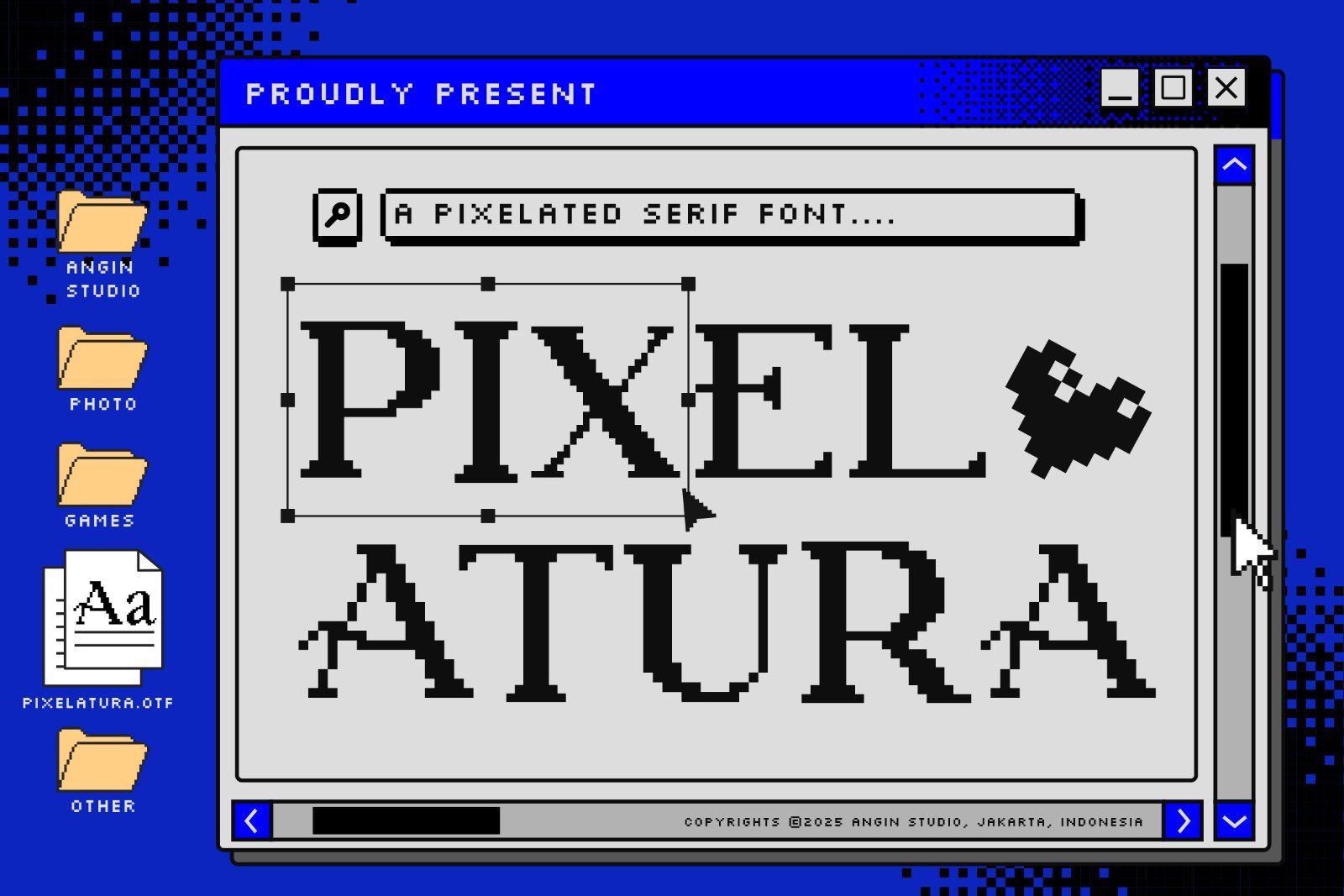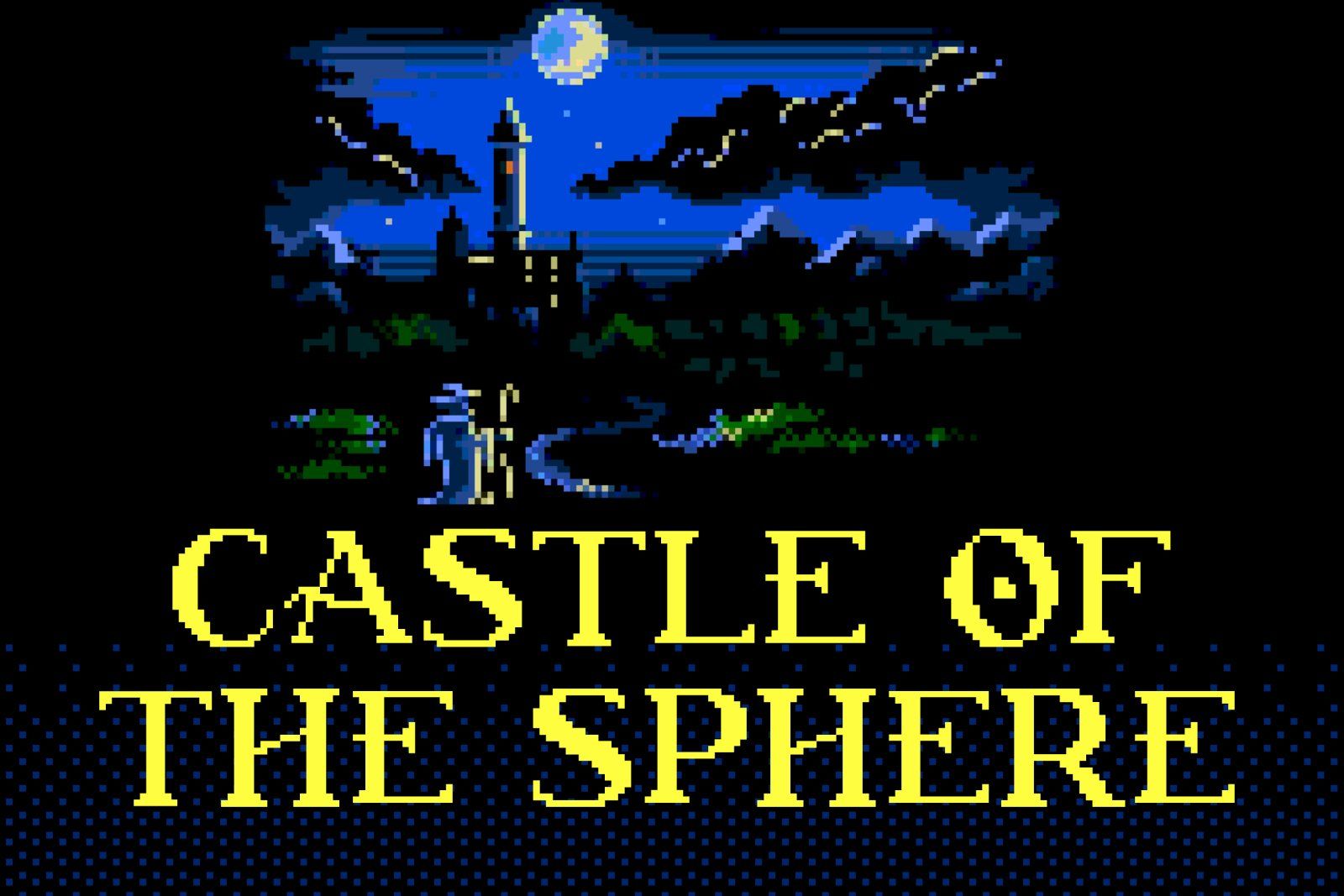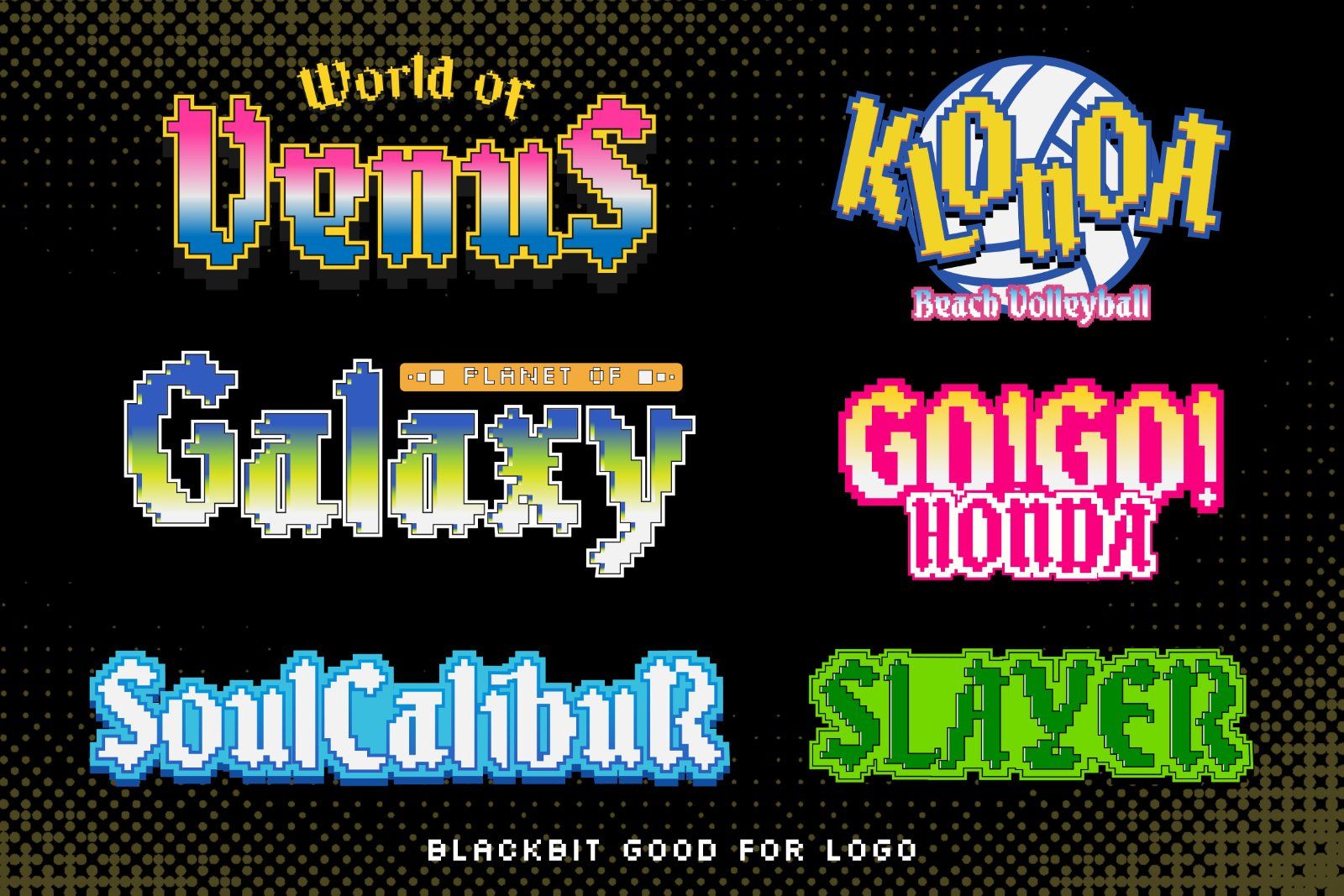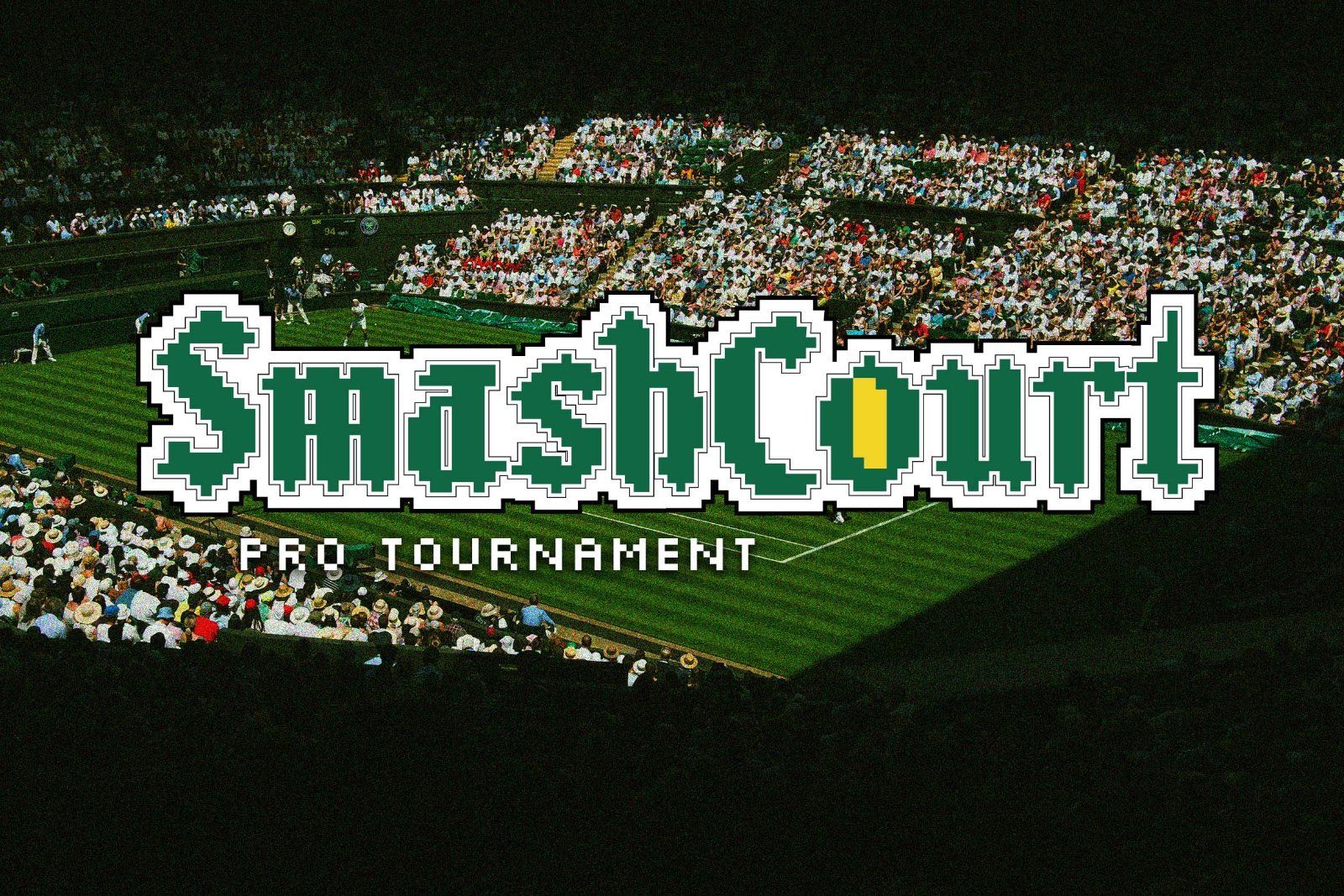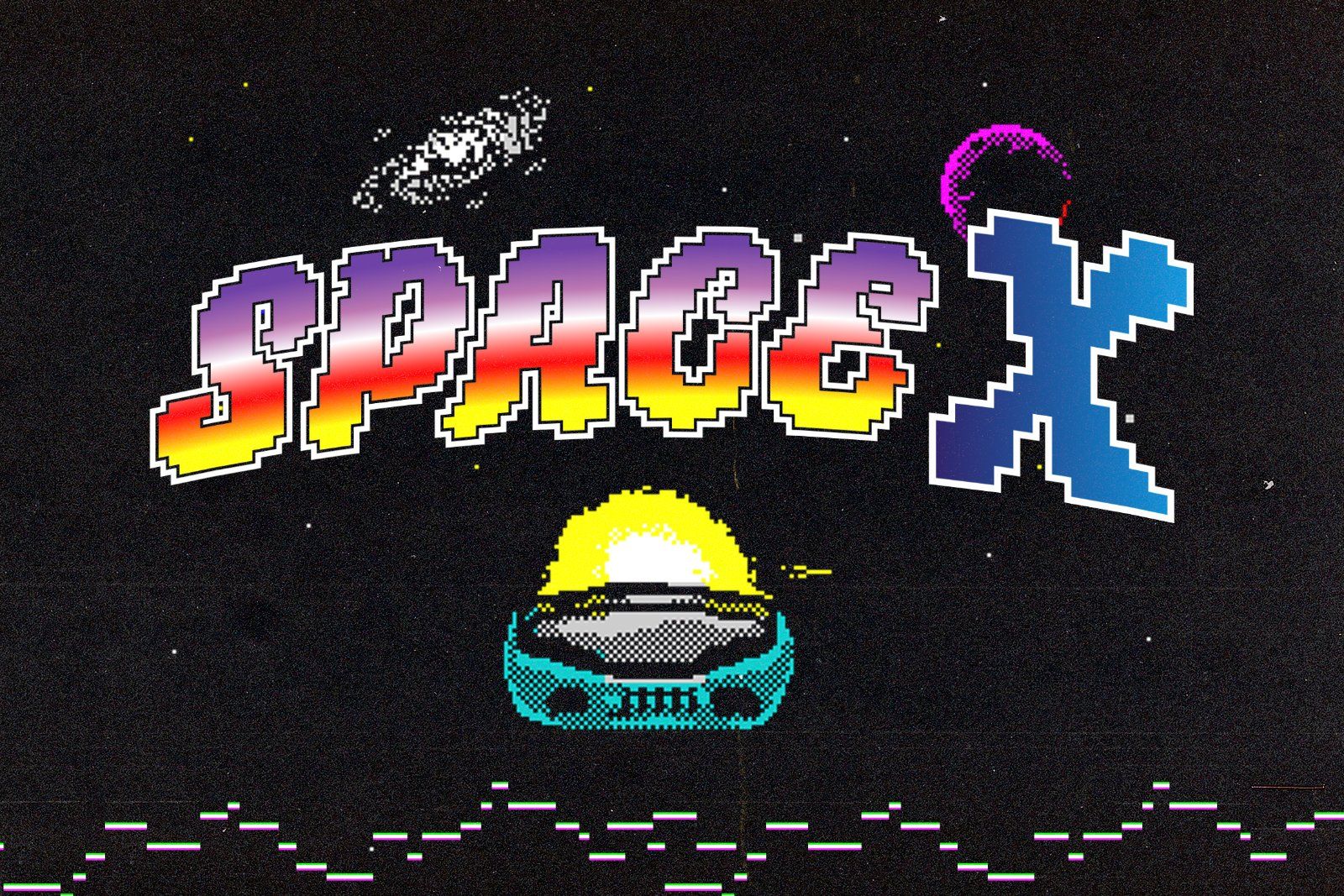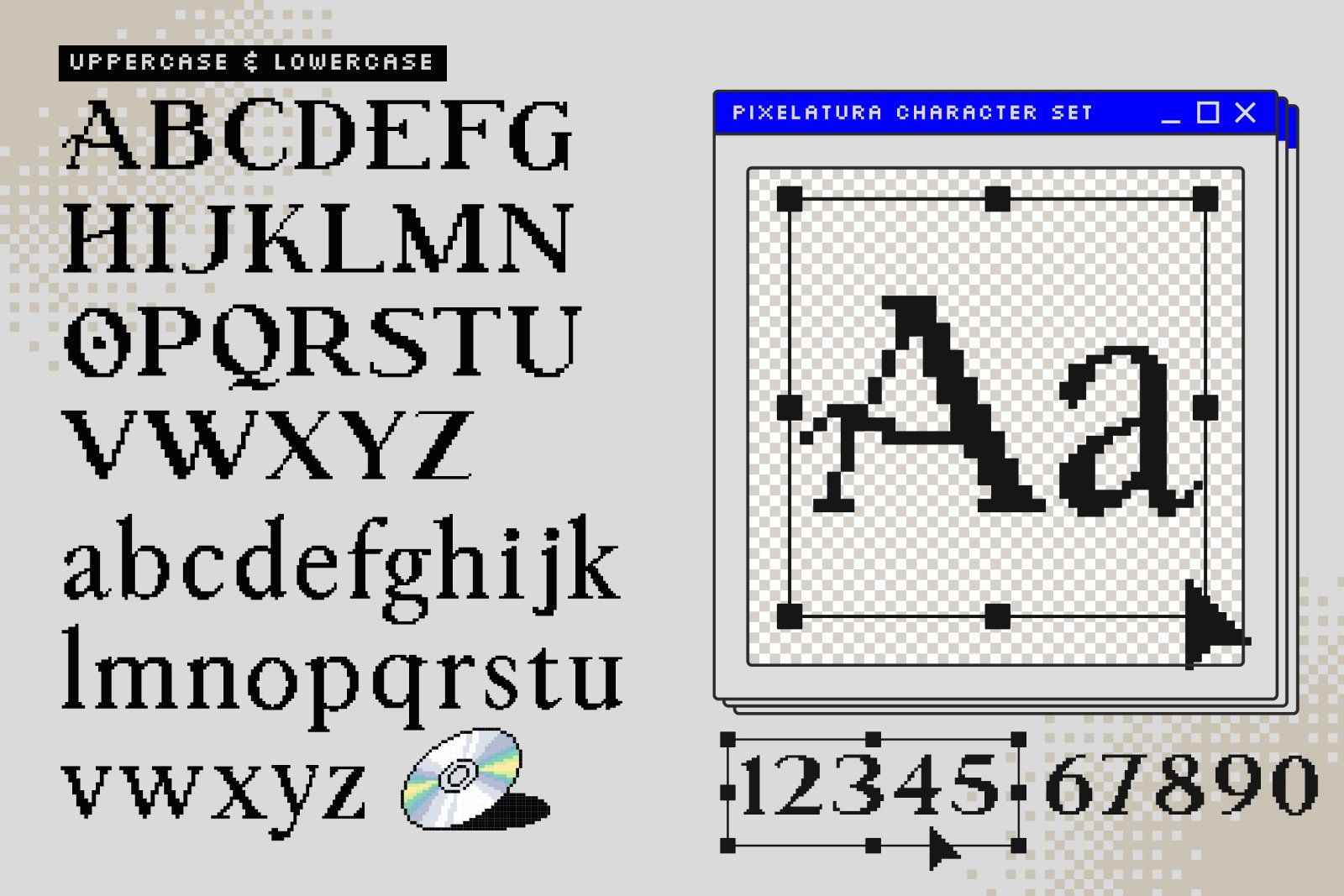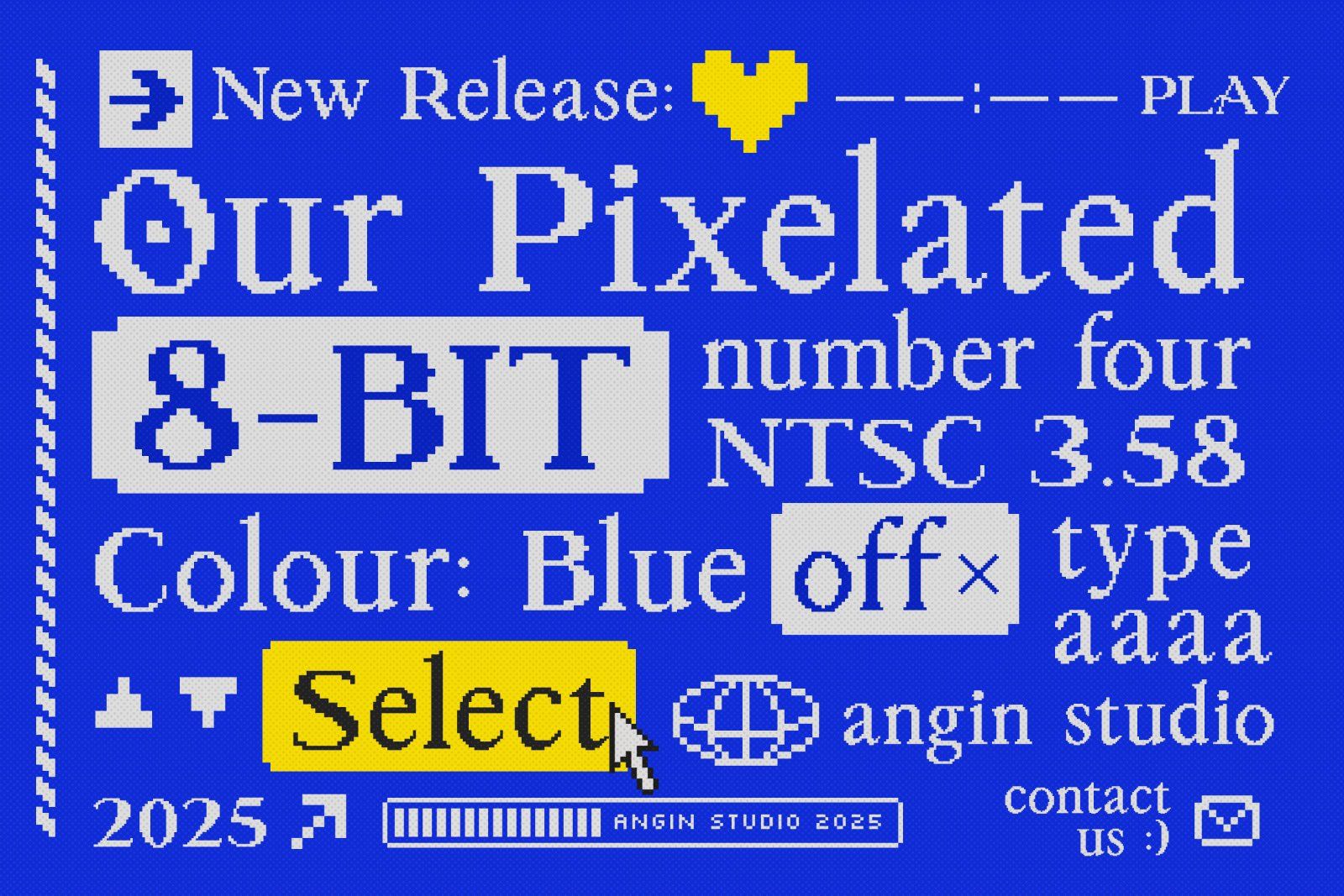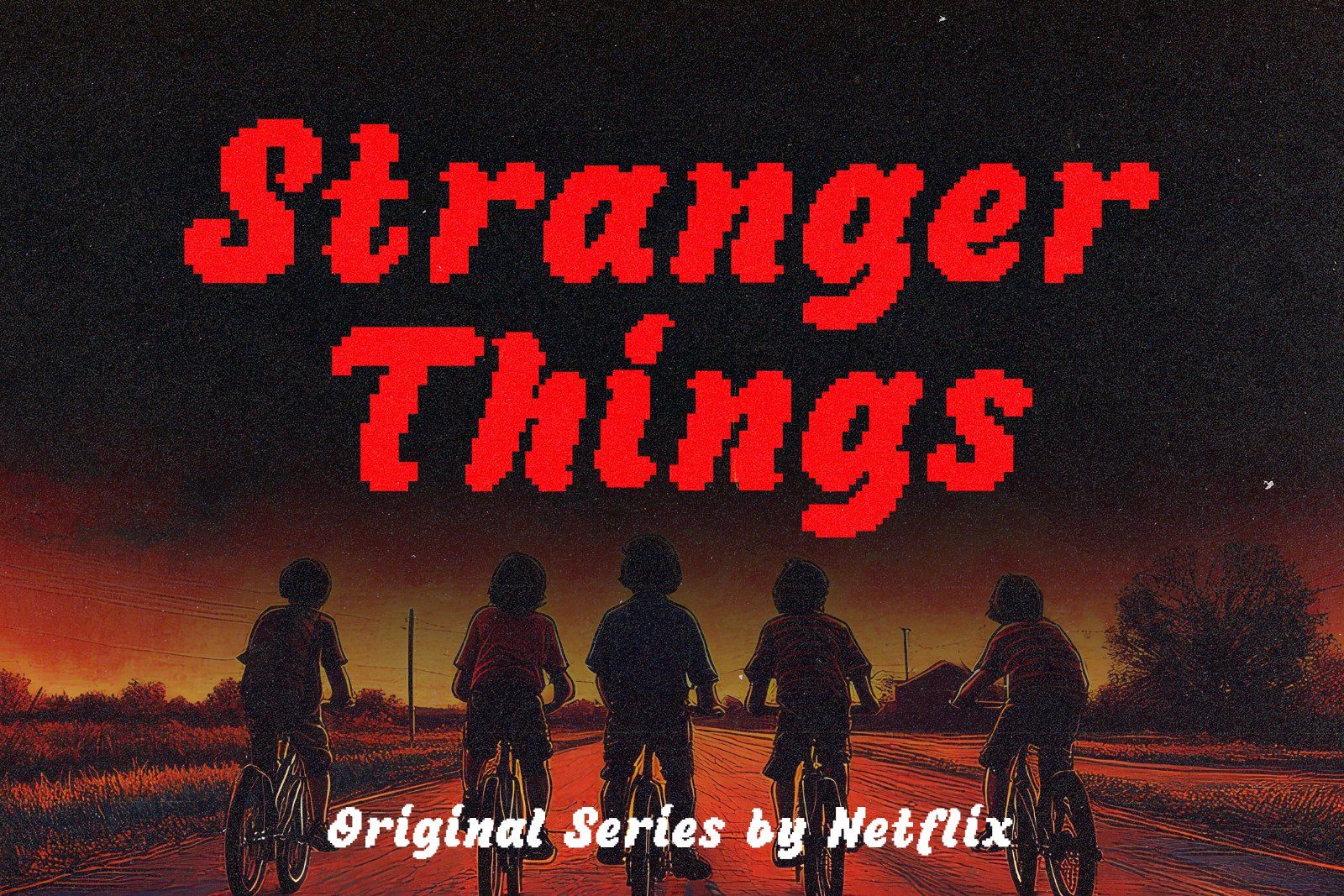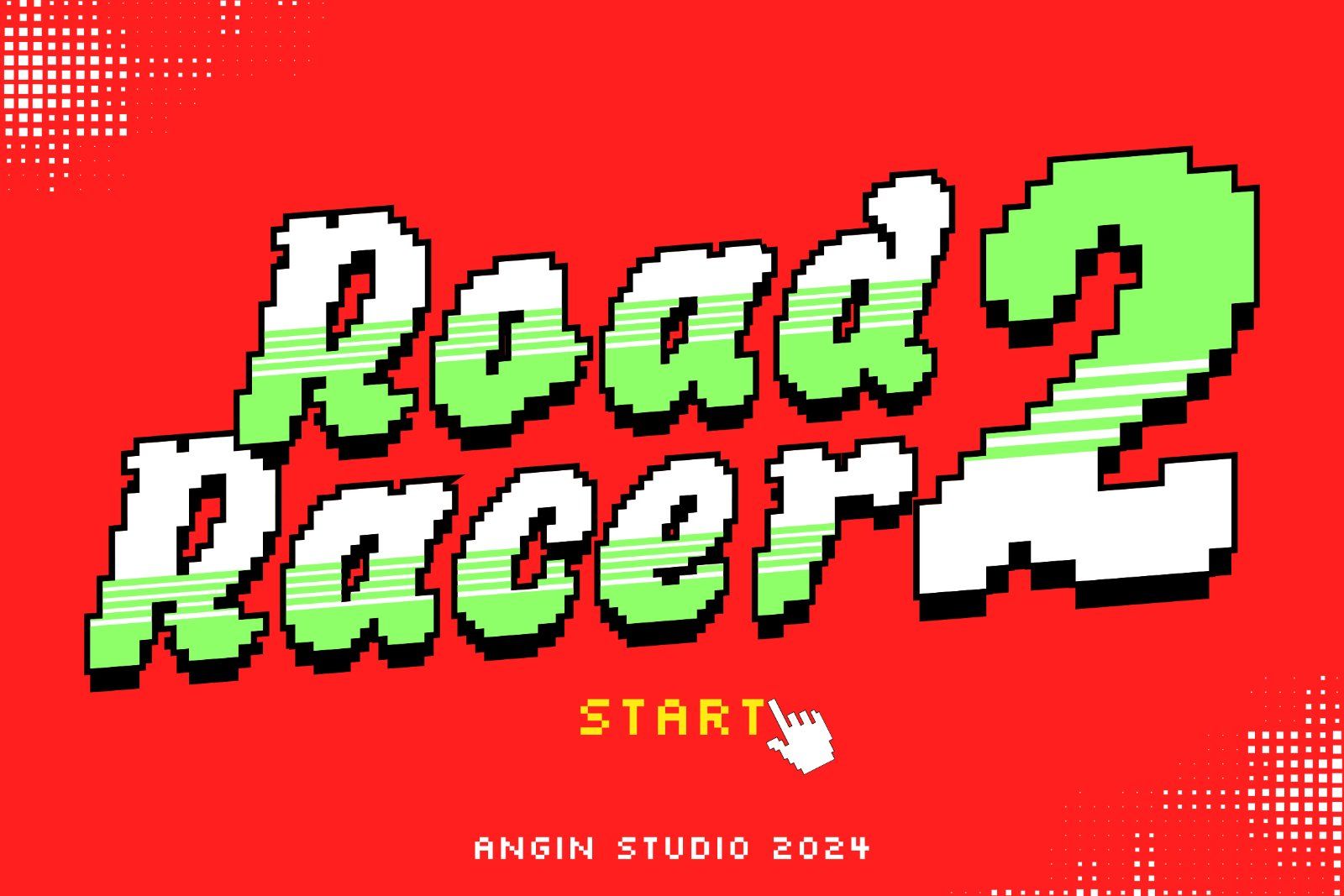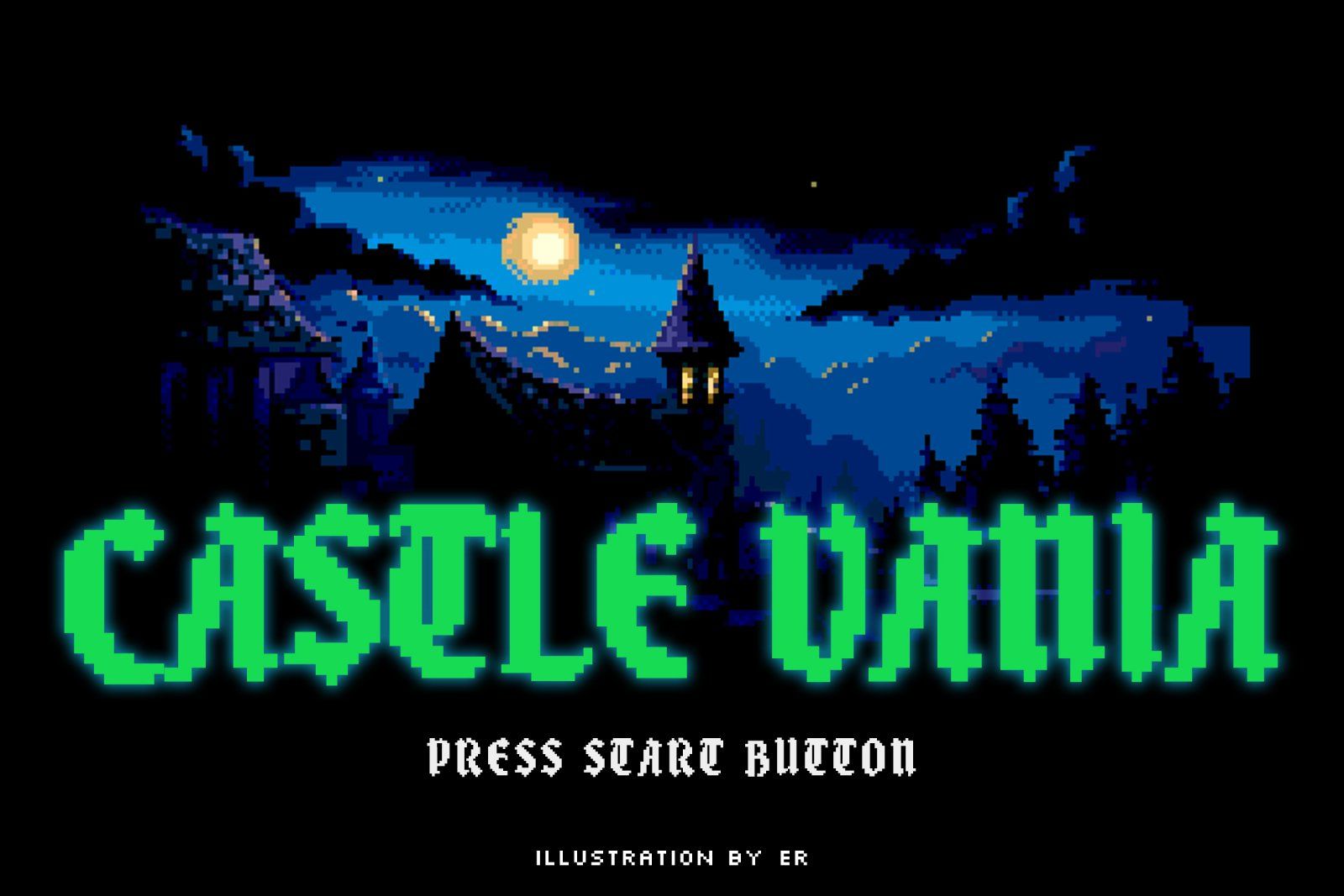
Unlock the ultimate nostalgic aesthetic with this beautiful Pixel Font Bundle. Designed for game developers, graphic designers, and digital artists, this collection brings 8 bit and 16 bit arcade vibes into modern creative projects.
Instead of a single repetitive style, this versatile bundle features four distinct typographic takes on pixel art:
• Pixel Fraktur / Blackletter: A bold, gothic pixel font combining medieval aesthetics with retro arcade nostalgia. Perfect for dark fantasy game UI, metal band merch, and edgy streetwear branding.
• Pixel Heavy Bold: High impact, chunkier lettering engineered for maximum readability on digital displays. Ideal for retro game titles, stream overlays, YouTube thumbnails, and poster headers.
• Pixel Serif: A crisp, classic serif pixel font that blends traditional typography with low poly design. Excellent for vintage RPG dialogue, retro book covers, editorial layouts, and web UI.
• Pixel Script / Cursive: A fluid, handwritten style pixel font offering a rare pixelated calligraphic look. Great for creative logos, pixelated greeting cards, indie game menus, and retro social media graphics.
Key Features:
• Full uppercase, lowercase, numbers, punctuation, multilingual
Perfect For: Indie game design, retro 80s/90s marketing campaigns, pixel art UI/UX, Twitch stream graphics, cyber/synthwave branding, and vintage apparel prints.